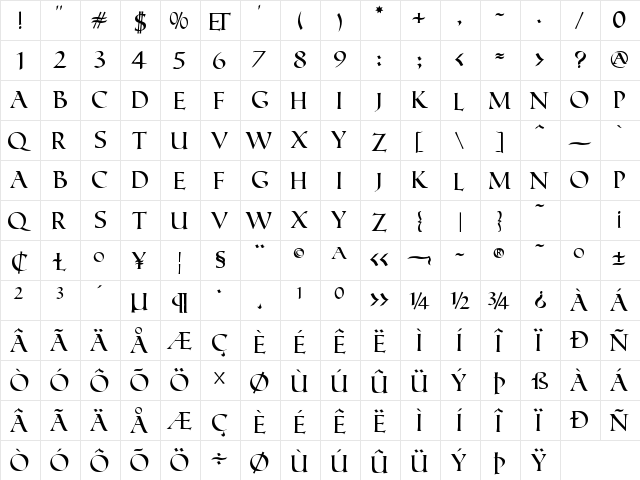
Roman Caps Regular
| Foundry | Steve Deffeyes |
Design Context for Roman Caps Typeface
Roman Caps offers clean, dependable letterforms without strong stylistic allegiance, making it a practical choice for designers who need flexibility.